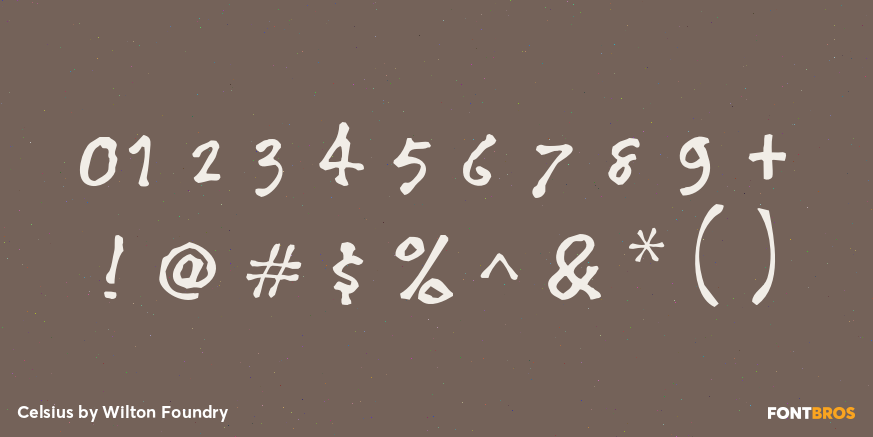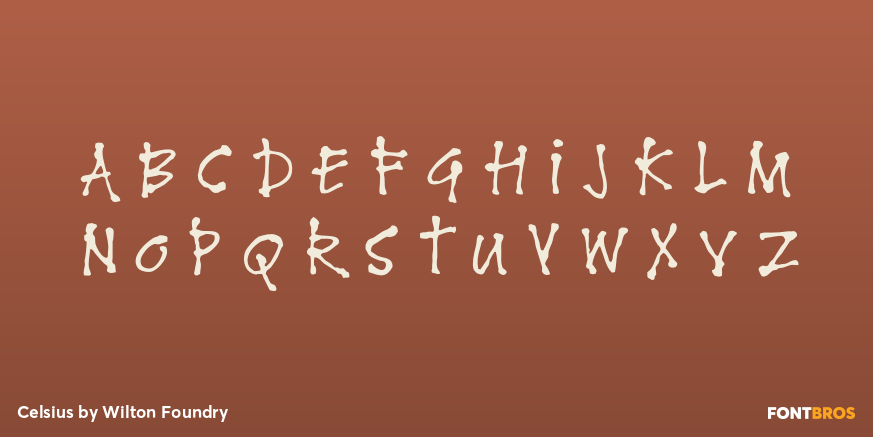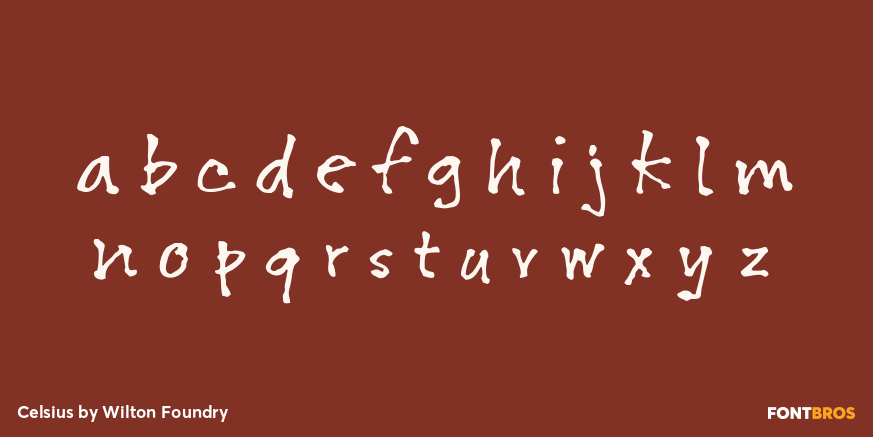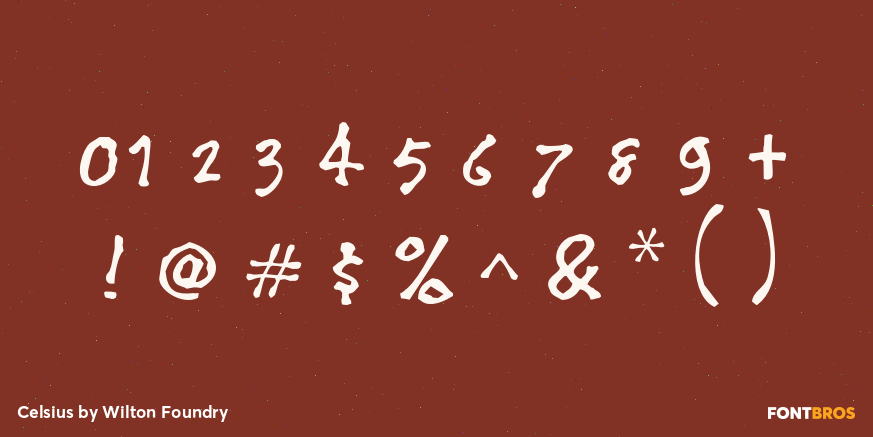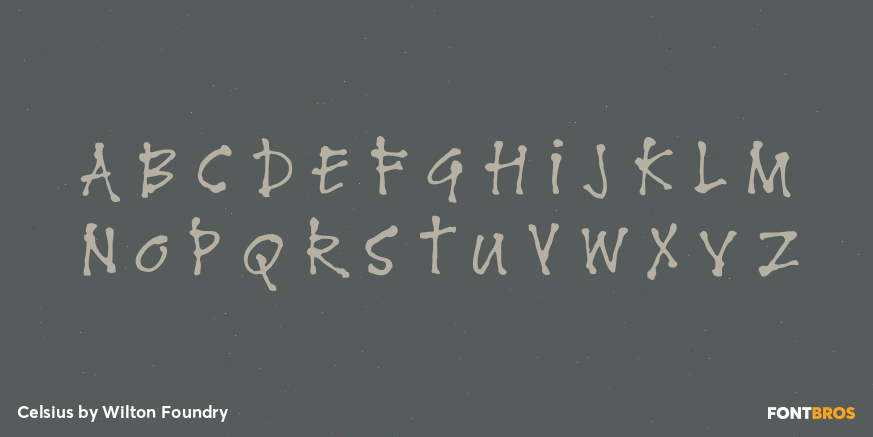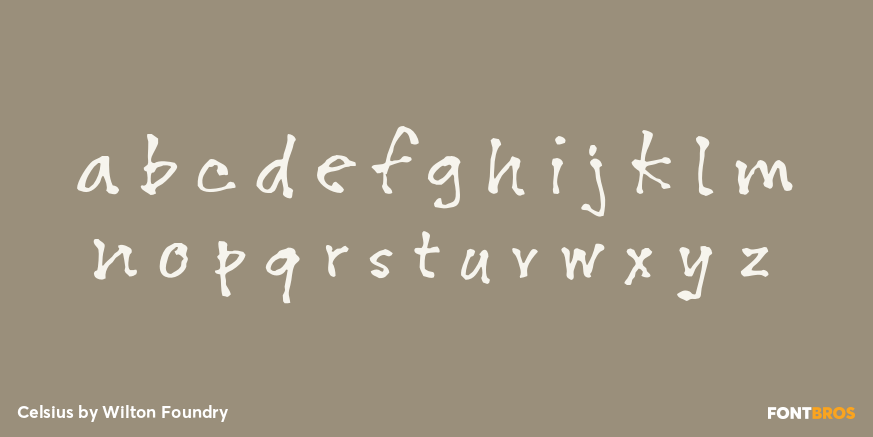
Celsius
Font Family by Wilton Foundry
Celsius was handwritten with a scratchy nylon marker creating a rougher than normal effect - almost like trying to write in the cold with a pen that doesn't cooperate very well. Dedicated to all snowboarders everywhere!